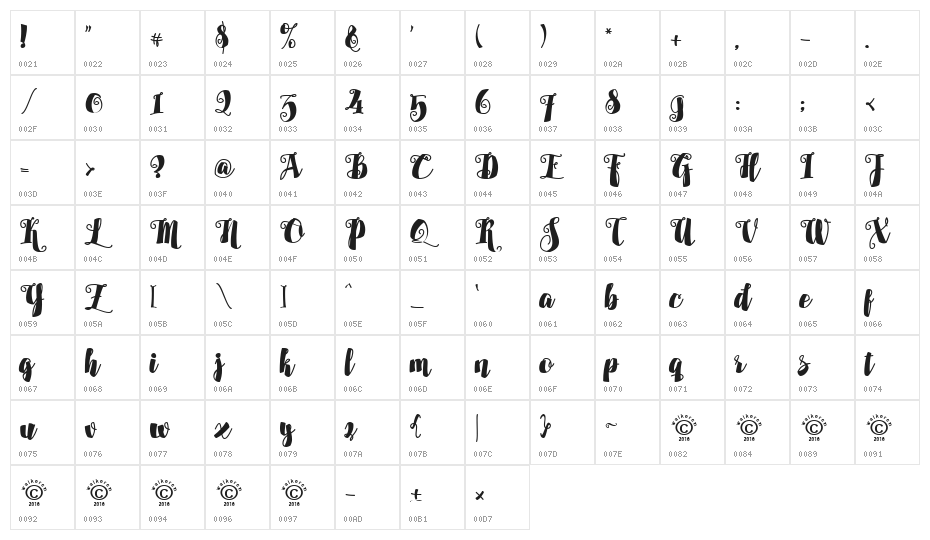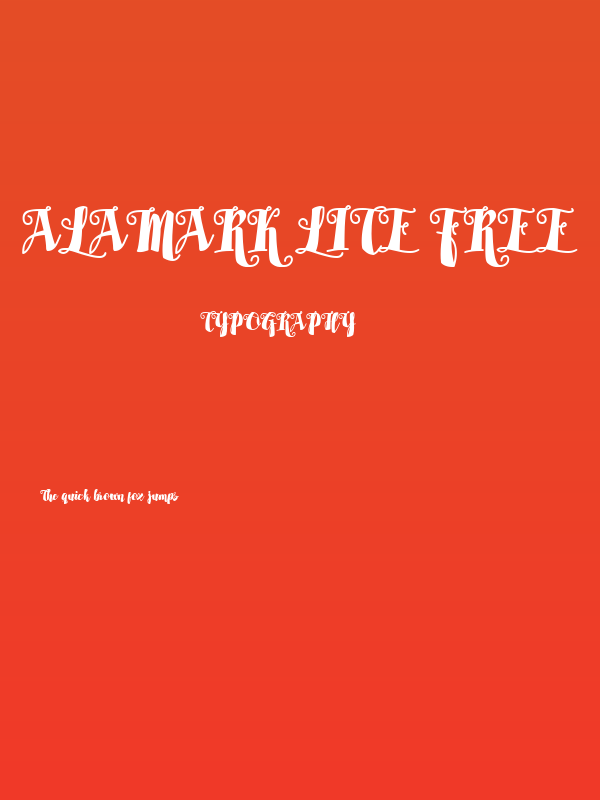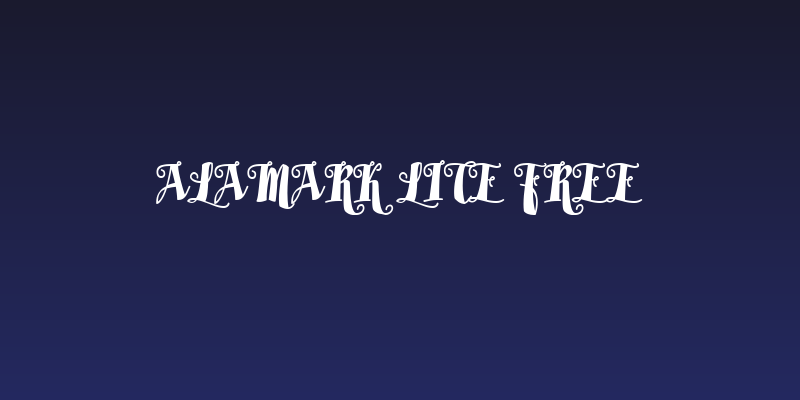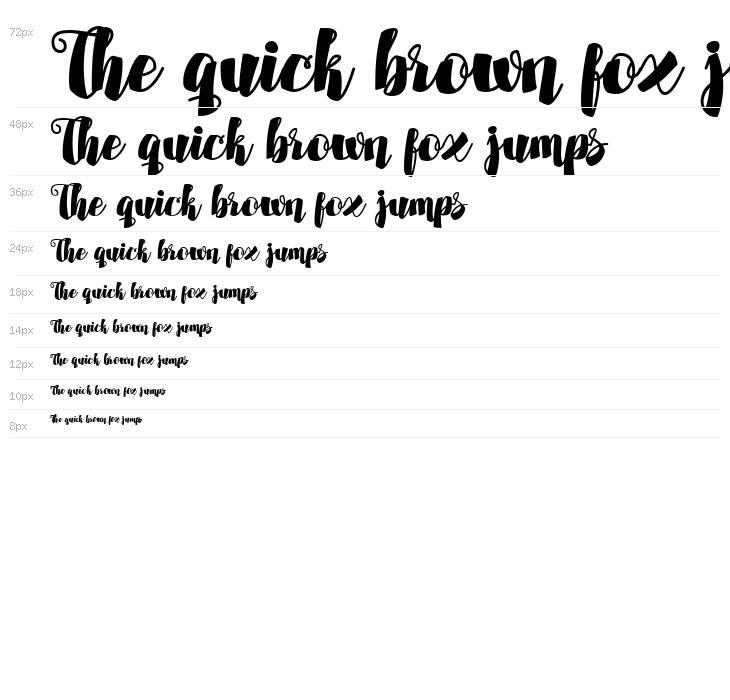
Alamark Lite Free Font
Alamark Lite Free Description
This font features a whimsical and decorative style with a playful twist. The uppercase letters are characterized by elegant swirls and curls, adding a sense of movement and flair. The lowercase letters maintain a similar style, with some characters having unique loops and embellishments that enhance their visual appeal. The numbers are equally ornate, with intricate details that make them stand out. Special characters are designed to match the overall aesthetic, ensuring a cohesive look. This font is perfect for projects that require a touch of creativity and elegance.
| Proposed Projects | Ideal for invitations, greeting cards, branding, and decorative posters. |